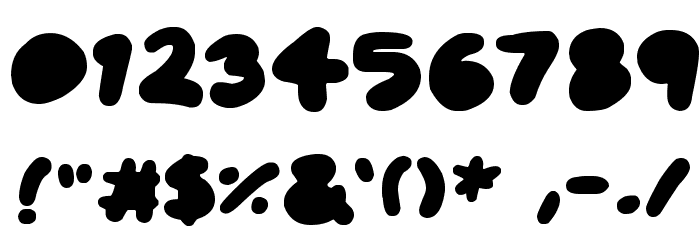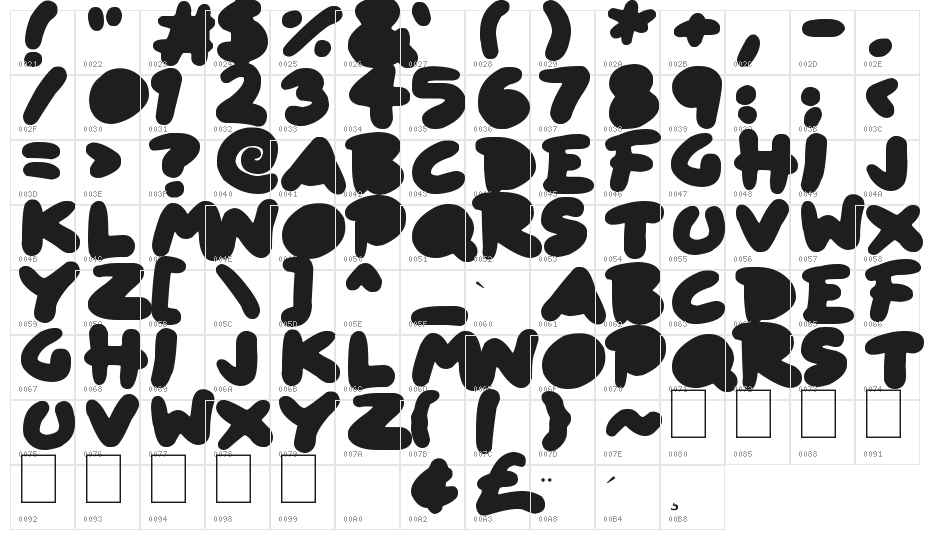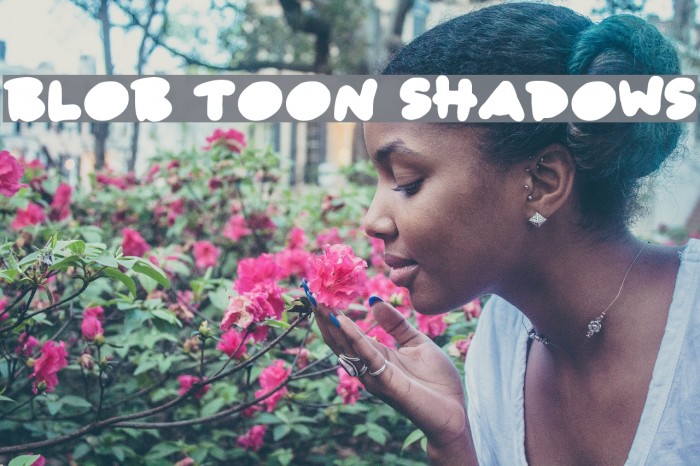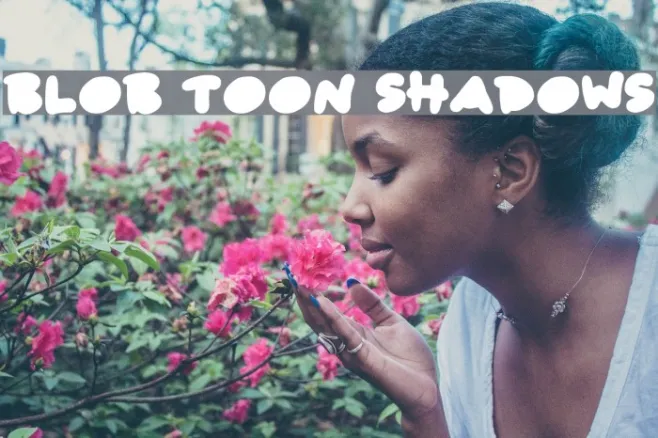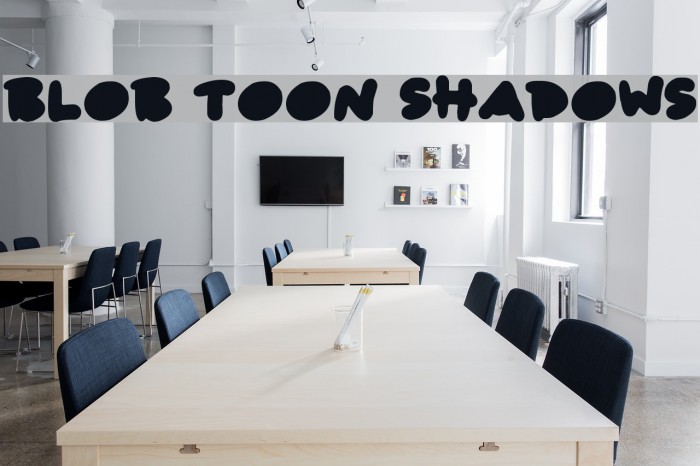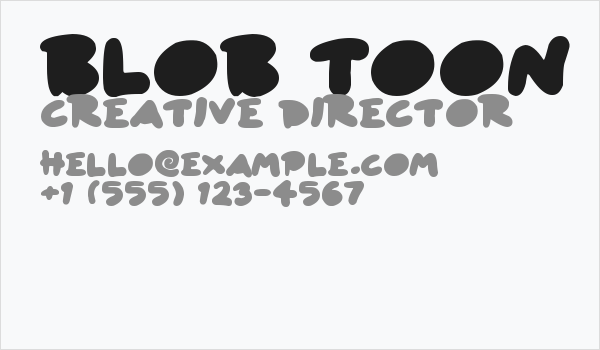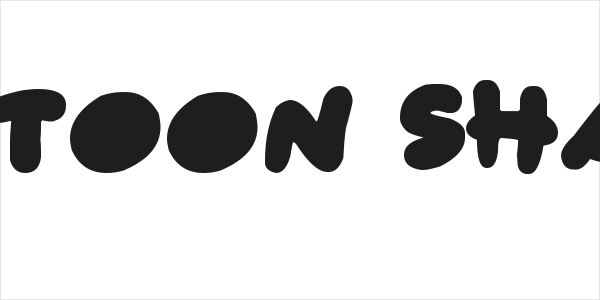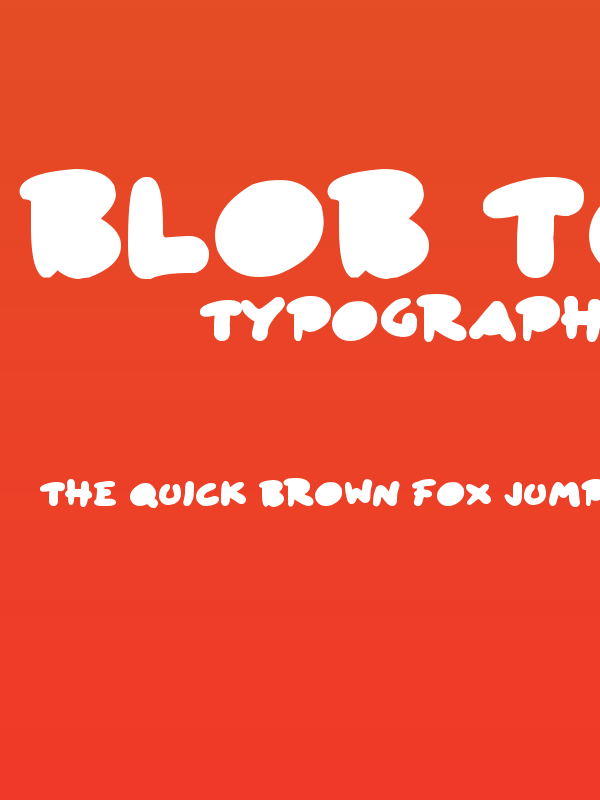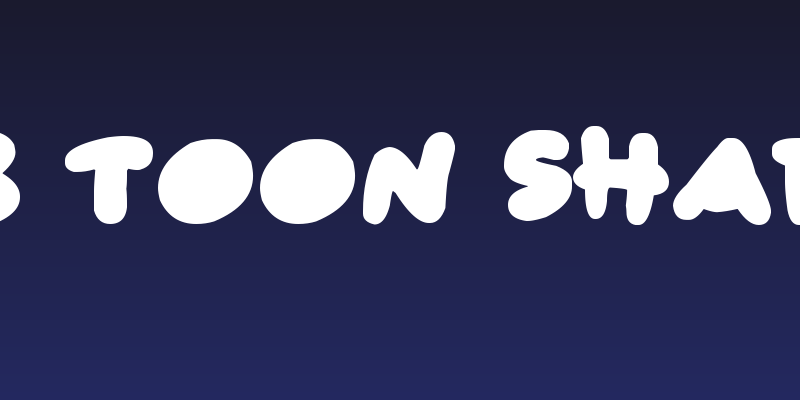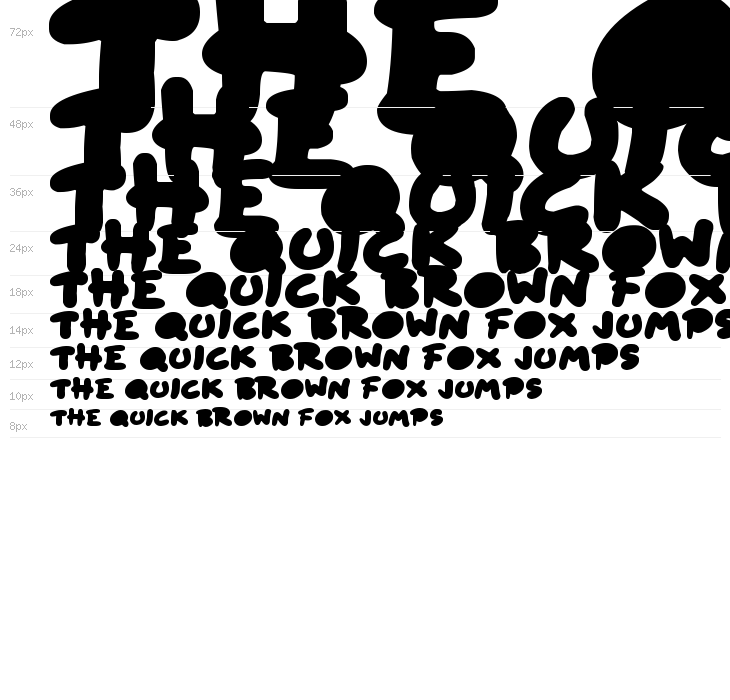
Blob Toon Shadows Font
Blob Toon Shadows Description
This playful and bold font features thick, rounded characters that evoke a sense of fun and whimsy. The letters are designed with a cartoon-like appearance, making them ideal for projects that require a lively and energetic feel. The strokes are consistent in thickness, providing a uniform look across all characters. The font includes both uppercase and lowercase letters, numerals, and a variety of special characters, ensuring versatility in its application. Its exaggerated curves and soft edges contribute to its friendly and approachable style, making it perfect for children's books, comic strips, or any creative project that aims to capture attention with a touch of humor.
| Overall Style | Playful, Cartoonish |
| Proposed Projects | Ideal for children's books, comic strips, playful branding, and creative posters. |